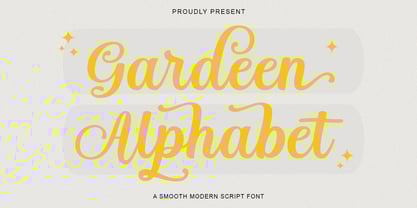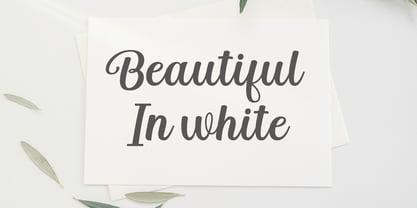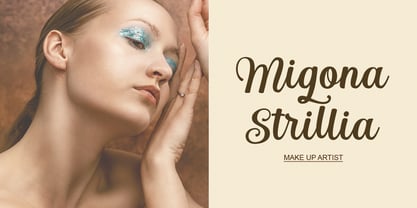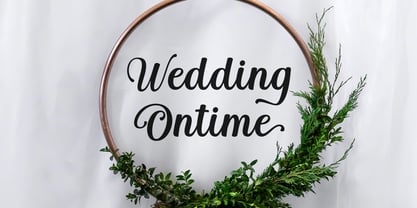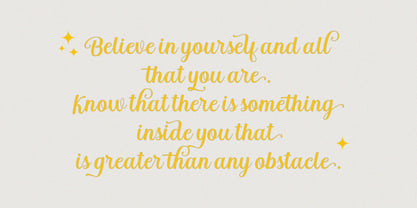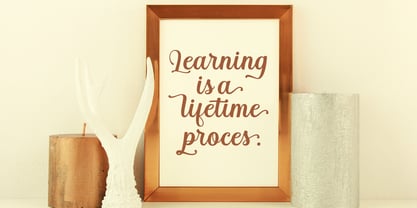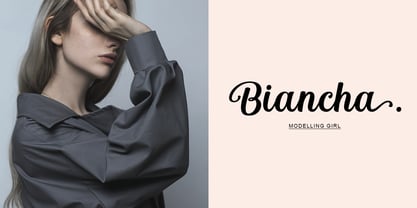
Garden Alphabet
by Suza Studio
The Garden Alphabet Font Family was designed by Zikrillah and published by Suza Studio. Garden Alphabet contains 1 styles.
This font is perfect for quotes, titles, blogs, logos, branding, invitations and more!
Designers: Zikrillah
Publisher: Suza Studio
Foundry: Suza Studio
Design Owner: Suza Studio